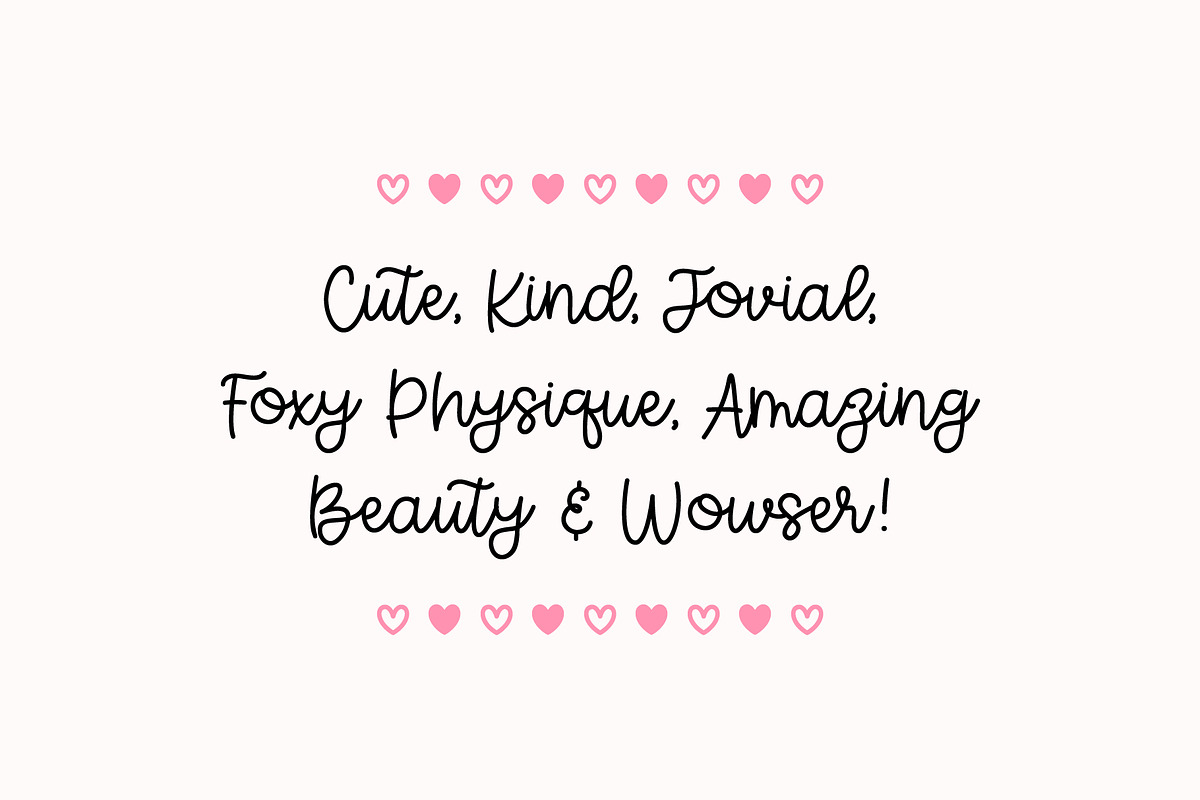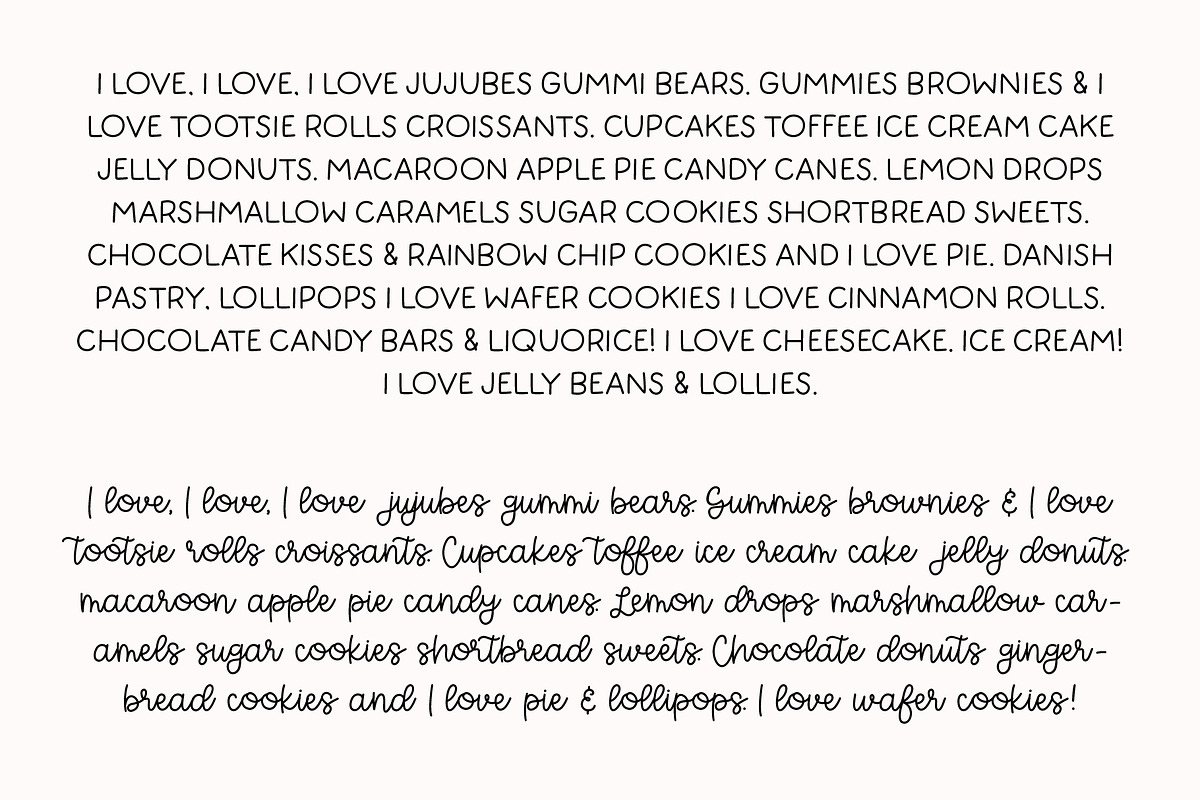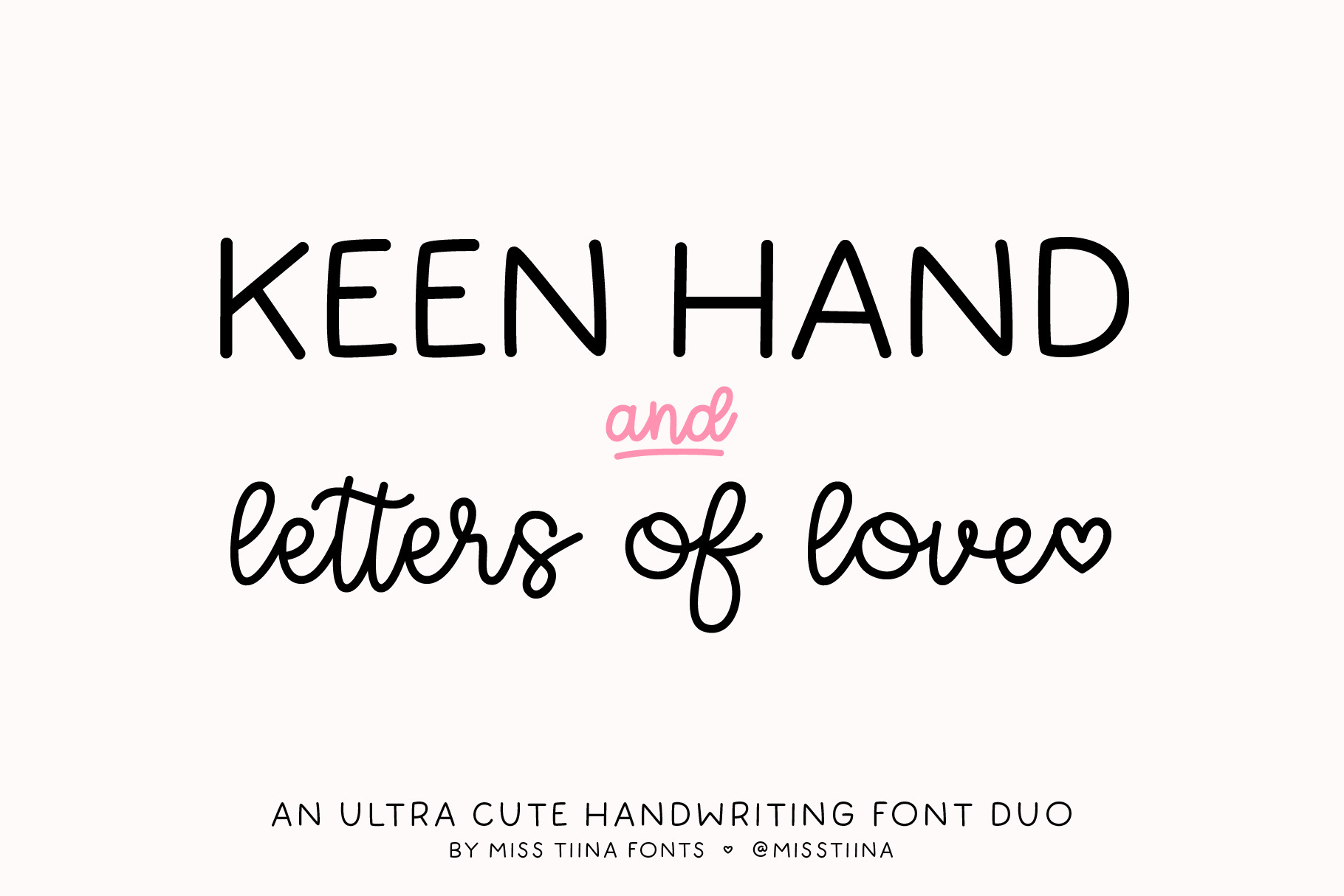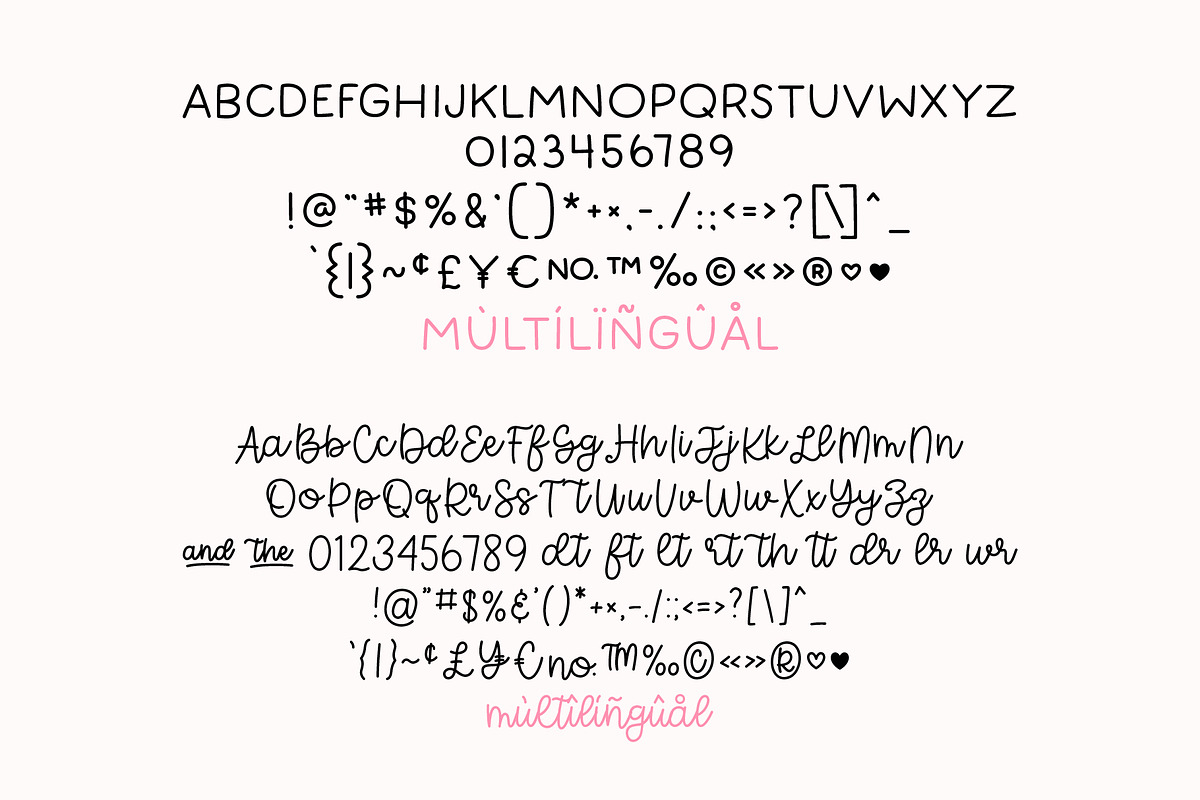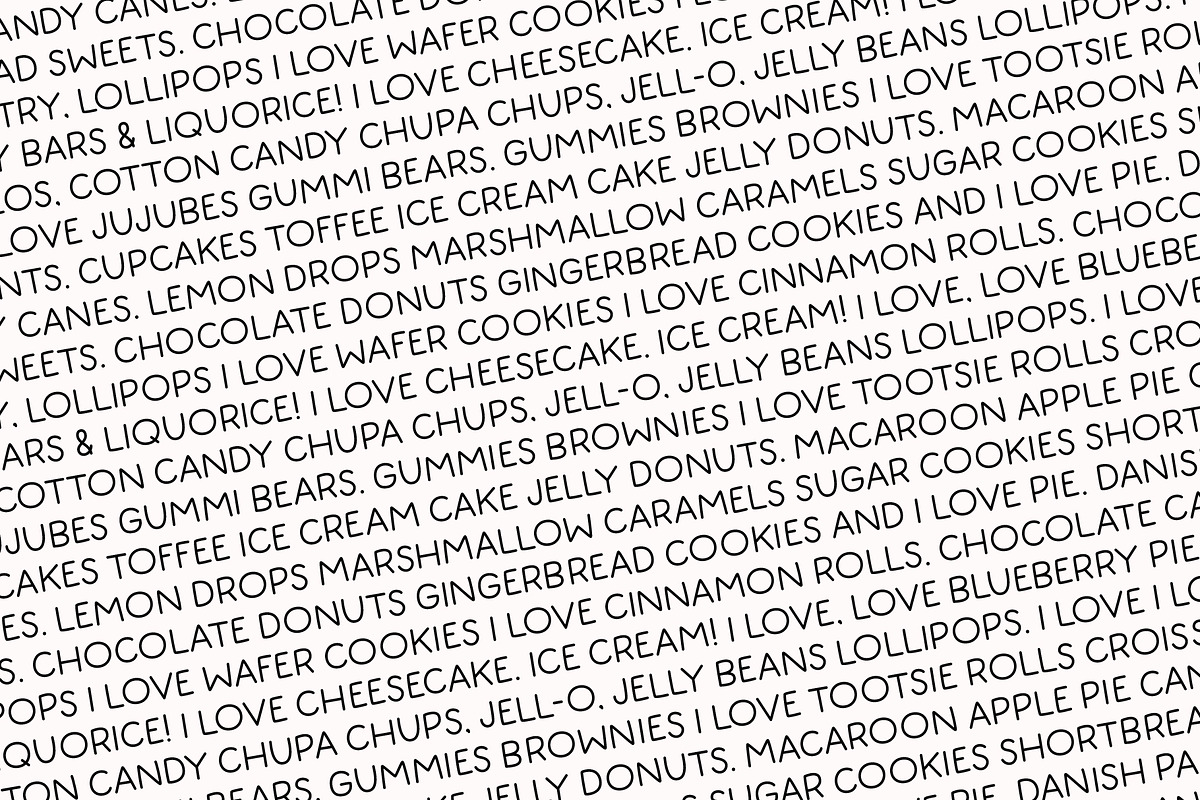
Keen Hand + Letters of Love Font Duo
Experience the captivating blend of style and persuasion with the Keen Hand + Letters of Love Duo. This dynamic font pairing encapsulates two visually stunning handwritten fonts; the bold and alluring all-caps Keen Hand and the elegantly flowing Letters of Love script. Its versatility makes it an ideal choice for a myriad of endeavors — from product packaging to posters, from stationery to the unexpected. This duo weaves together a touch of professional charm and personal connection, adding a visual appeal that’s both striking and memorable. Your projects will come alive with the Keen Hand + Letters of Love Duo.